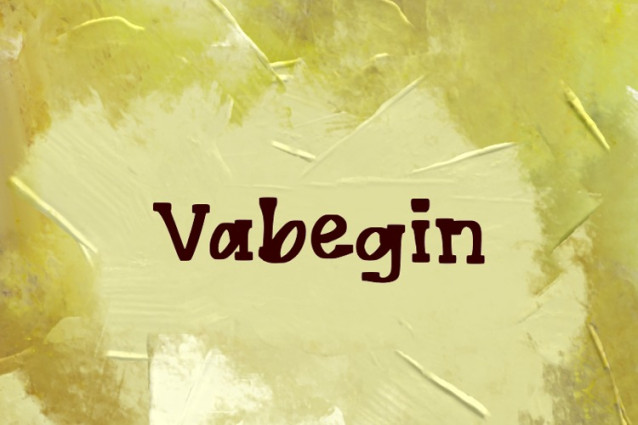
Vabegin Font
Vabegin Font is a chunky, comic, and cartoon display font. With its neat and joyful personality, this font will enhance any project you wish to create!